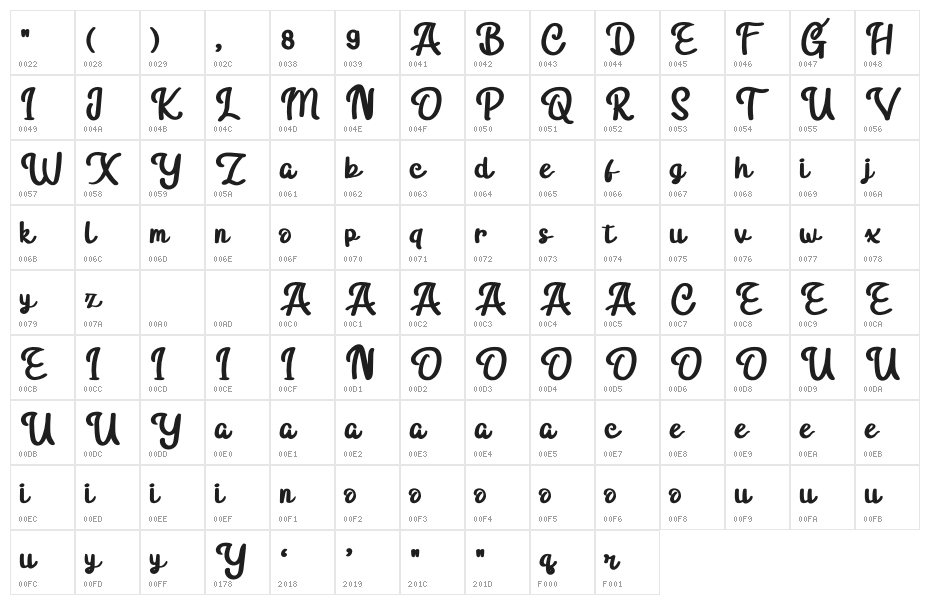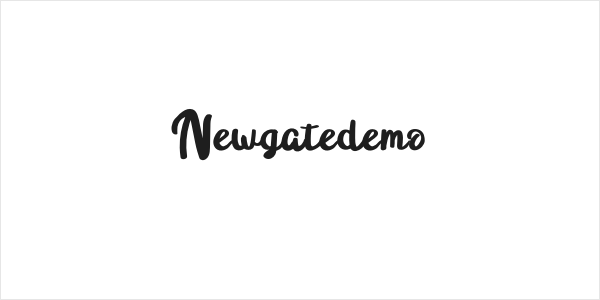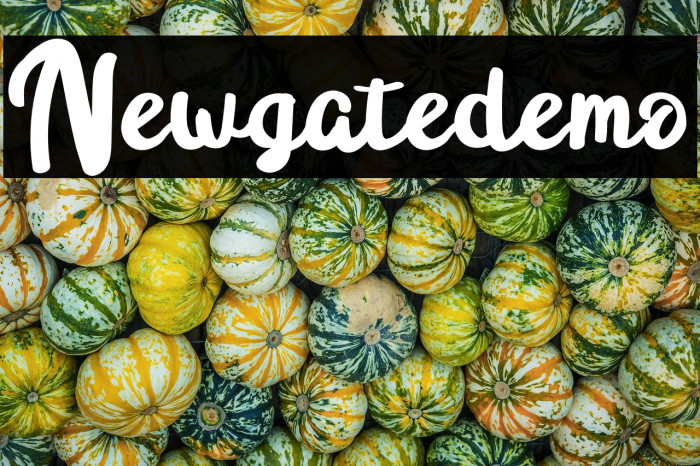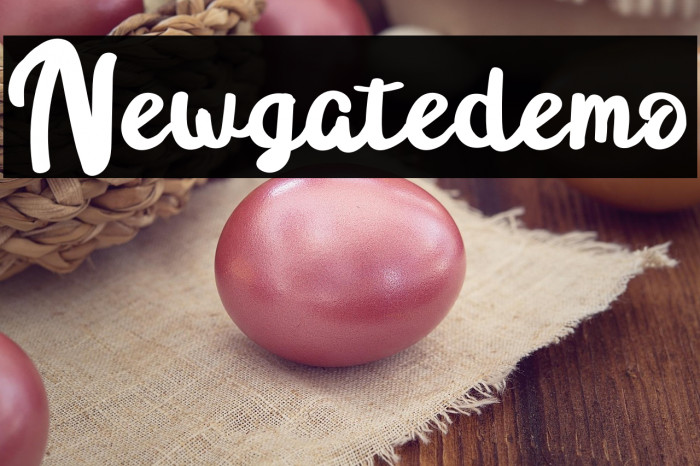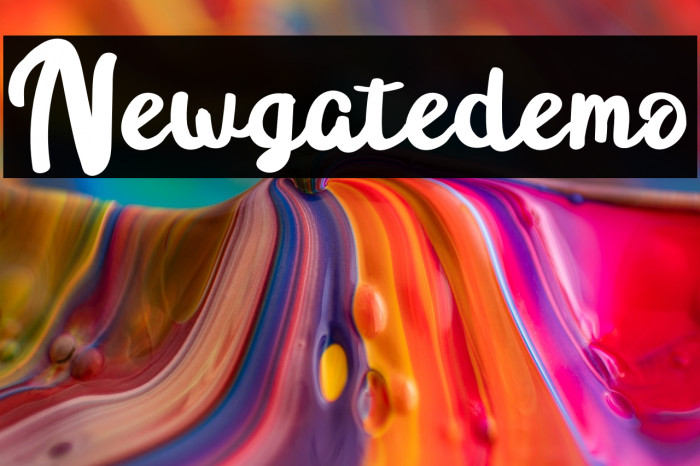
Newgatedemo Font
Newgatedemo Description
This font features a playful and bold script style, characterized by its flowing, cursive letterforms. The uppercase letters have a consistent height and a slight slant, giving them a dynamic appearance. The lowercase letters are rounded and maintain a smooth, connected flow, enhancing the script's handwritten feel. The numbers are bold and slightly rounded, matching the overall style of the alphabet. The font includes a variety of special characters, maintaining the same playful and bold aesthetic. This font is ideal for projects that require a touch of whimsy and creativity, such as invitations, greeting cards, or playful branding.
| Overall Style | Playful, Creative |
| Proposed Projects | Invitations, greeting cards, playful branding, creative posters. |